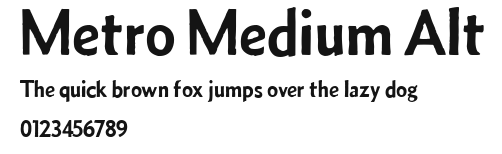
• Font Name: Metro Medium Alt
• Full Font Name: Metro Medium Alt HPLHS
About Metro Medium Alt.ttf
Metro Medium Alt.ttf is a modern, elegant sans-serif font designed for ultimate readability and visual harmony. Perfect for branding, headlines, web design, and print materials.